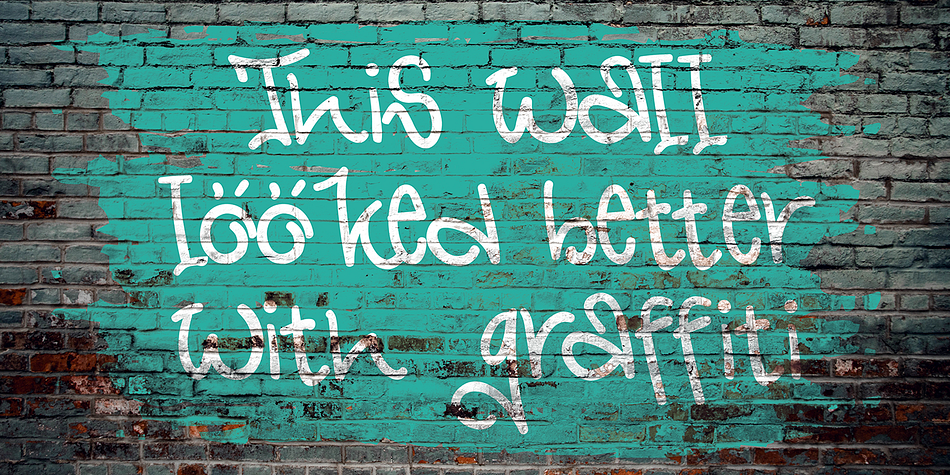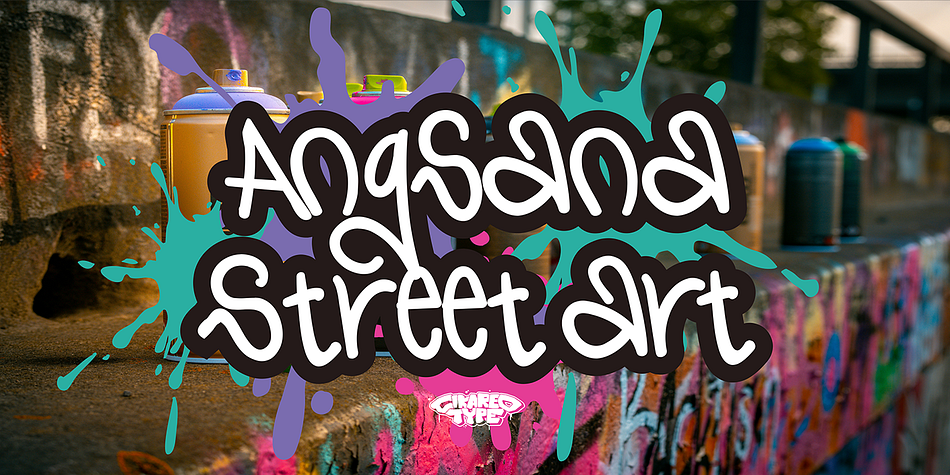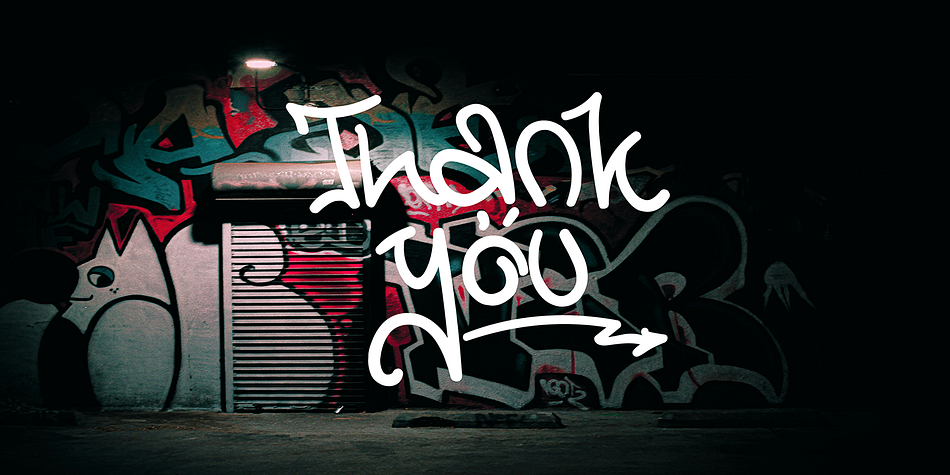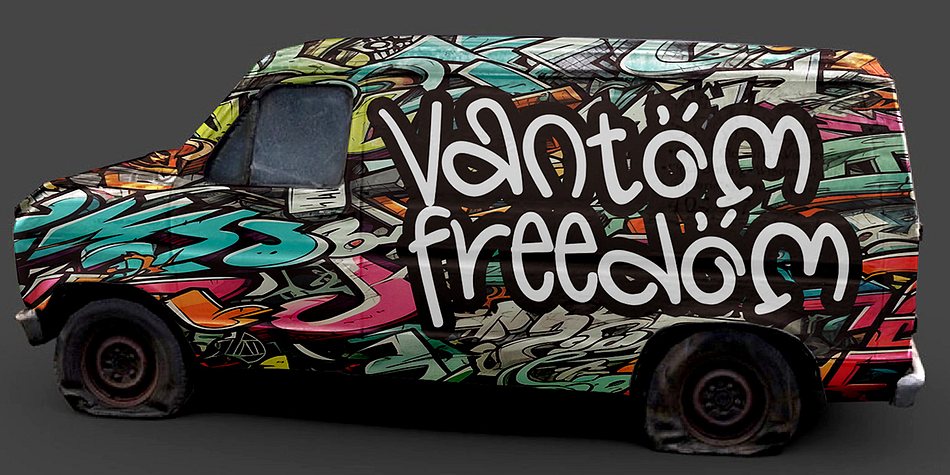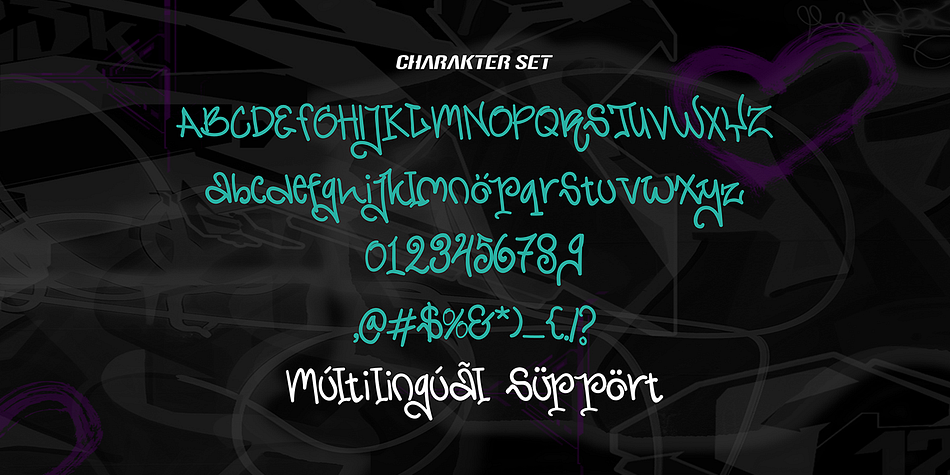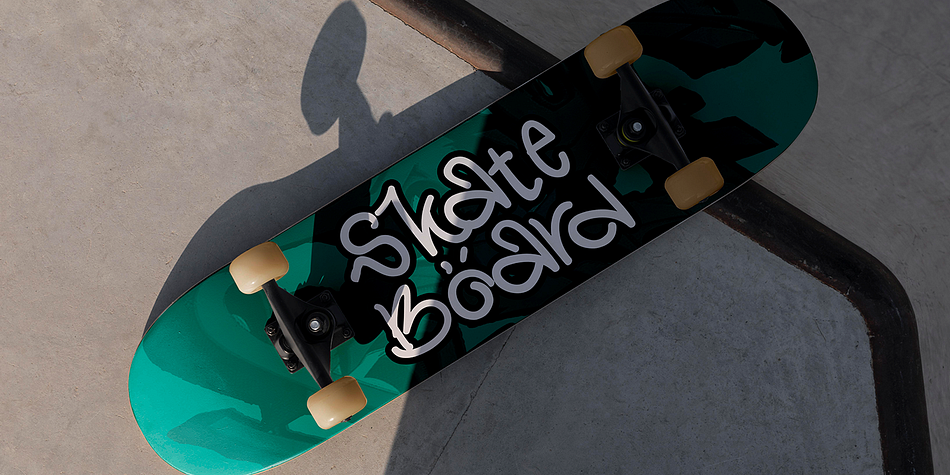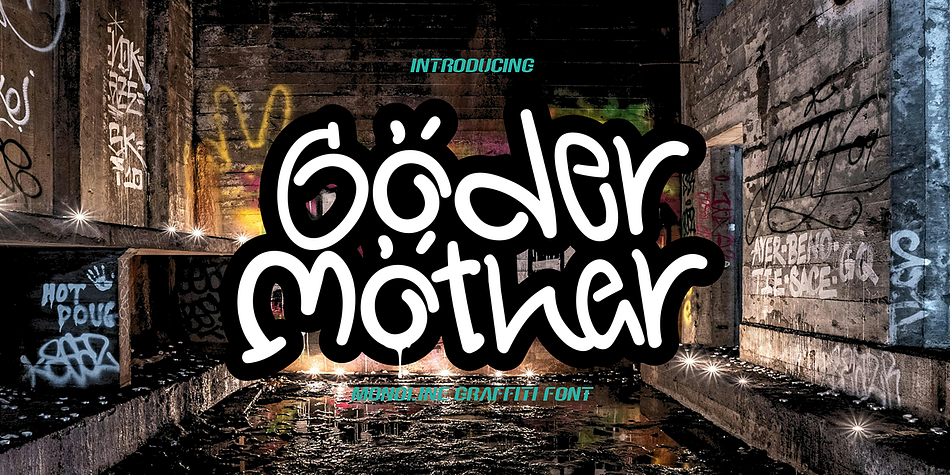
Goder Mother
Goder Mother is a hand drawn font family published by Cikareotype Studio.
“Goder Mother” is a striking monoline graffiti font that seamlessly blends natural and abstract elements. With its edgy and dynamic design, this font captures the raw energy of street art. The monoline style maintains consistency in stroke width, giving the typography a sleek urban aesthetic. Meanwhile, the incorporation of natural and abstract elements adds an intriguing twist, making “Goder Mother” perfect for projects that demand bold and expressive typography. Whether used for posters, urban-themed designs, or streetwear branding, this font brings a unique and captivating vibe to any project, embodying the essence of urban chic.